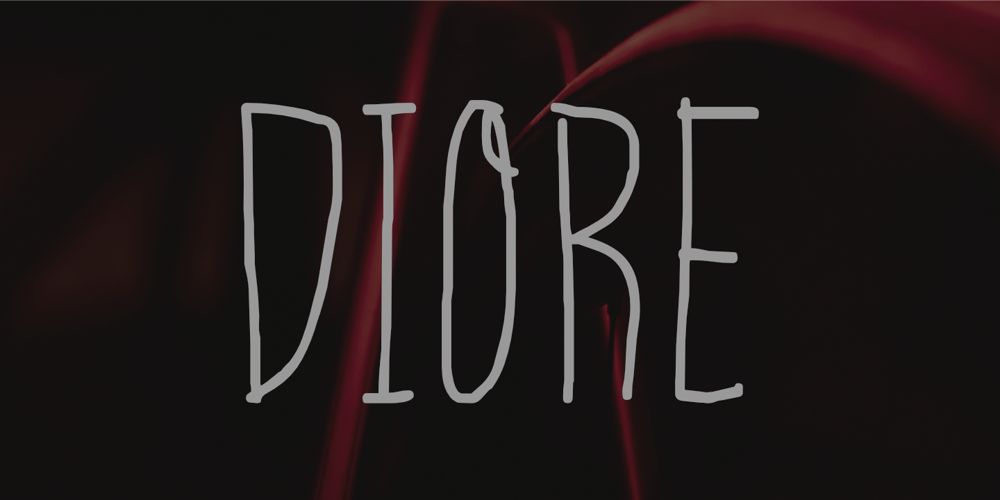
Diore Font Family was designed by Nurul Hidayani and published by Olivetype. Diore contains 1 styles and family package options. Meet Diore, a fun and playful handwritten font. It adds a unique and charming touch to your designs, with each stroke having its own personality. Use Diore in a range of projects, from social media graphics to website banners, – giving you so many creative possibilities.Diore features : Standard Latin Numbers, symbols, and punctuations Multilingual Support. Fully accessible without additional design software Simple Installations Works on PC & Mac Thank You.